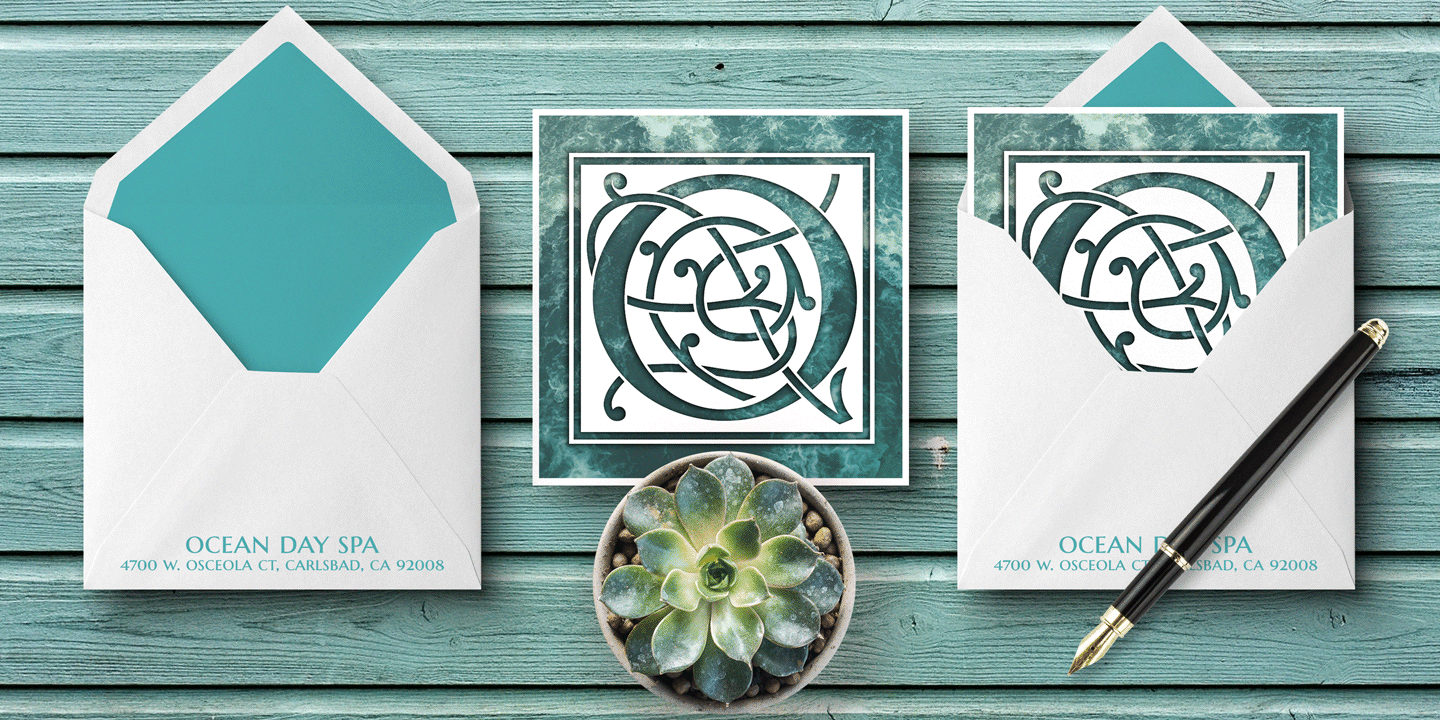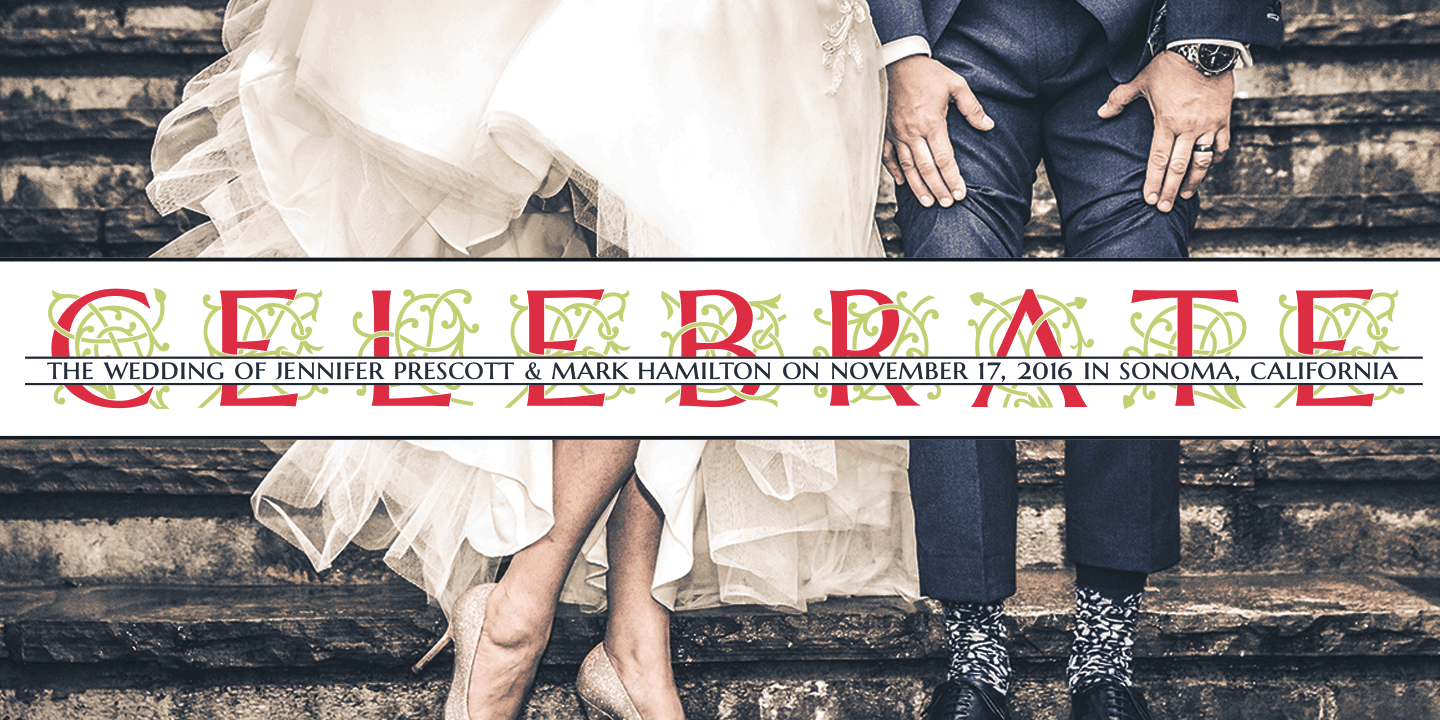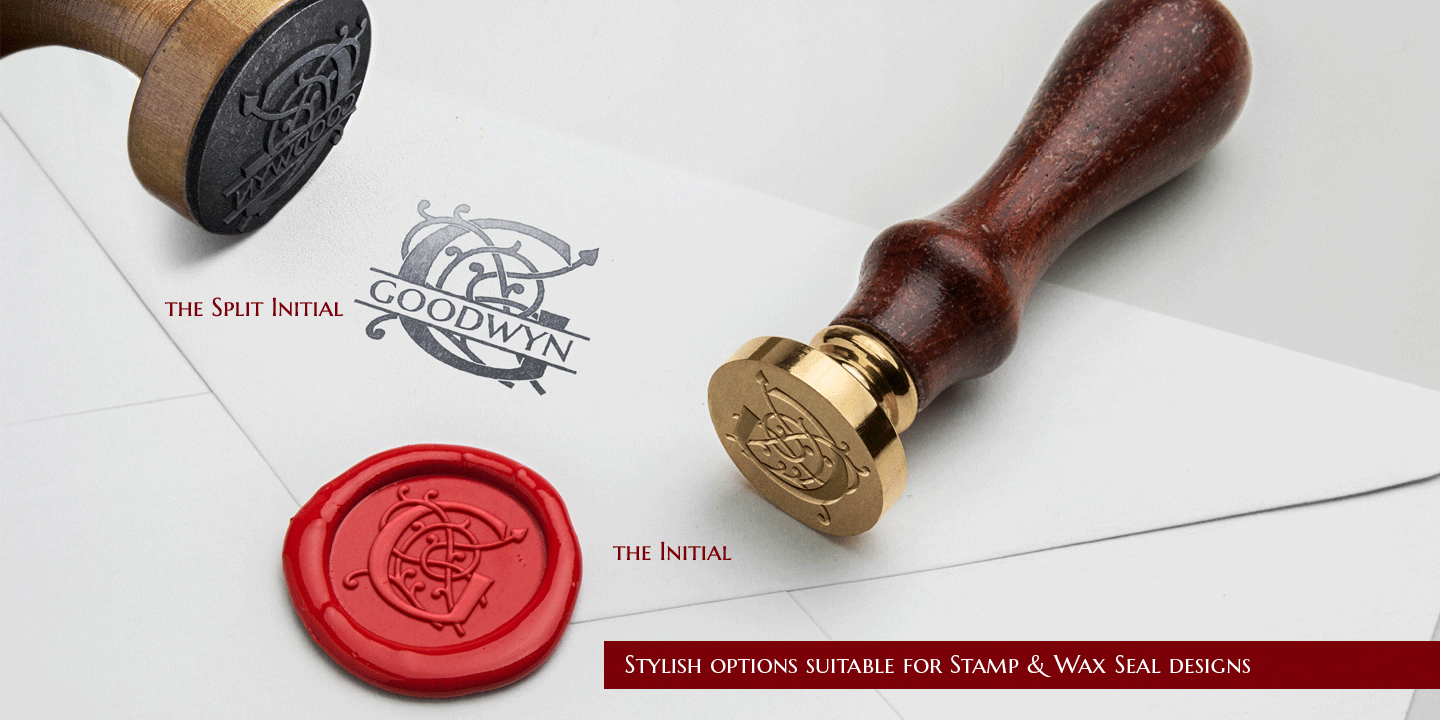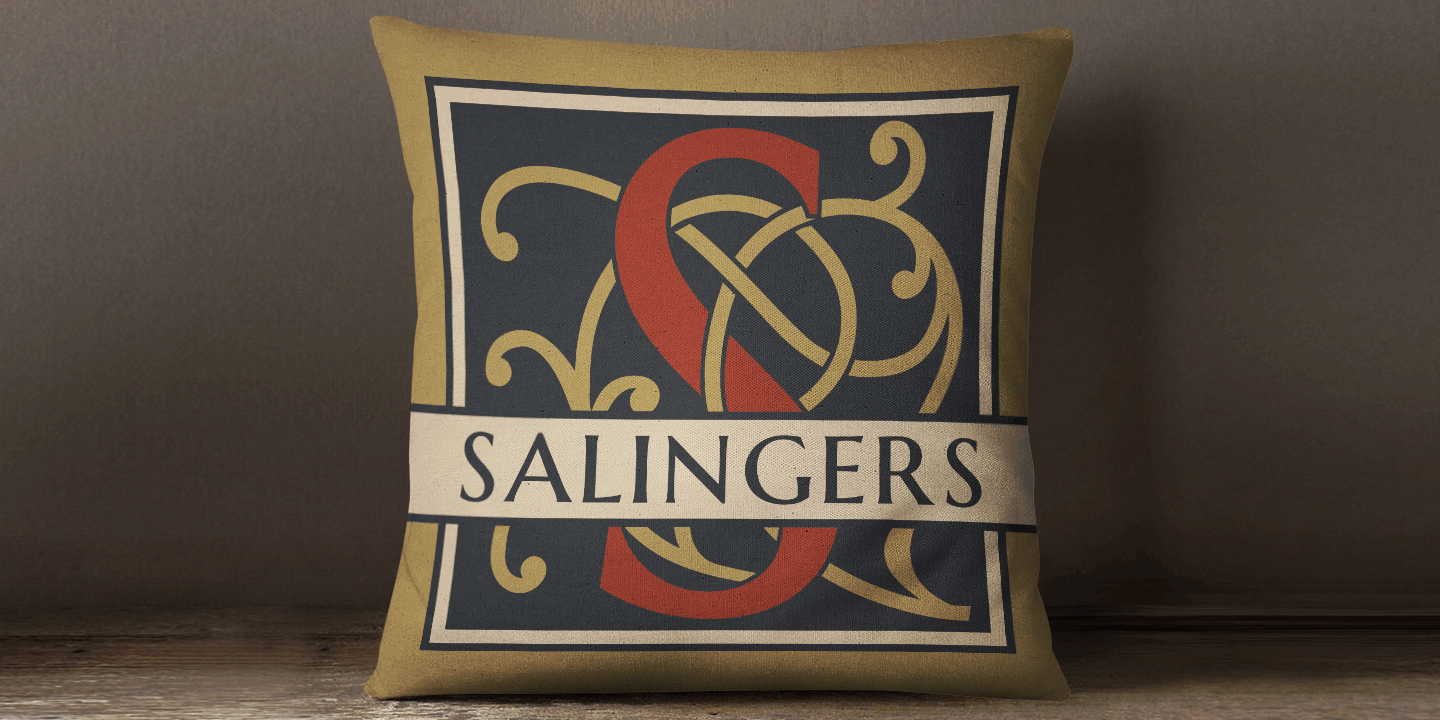
About Mercer
The source of inspiration for MFC Mercer is an initials set from the book ?Monograms and Alphabets for Combination? by Dollfus, Mieg & Cie, first published in the 1880's. We've taken the original Cameo styled initials that had a somewhat clumsy…